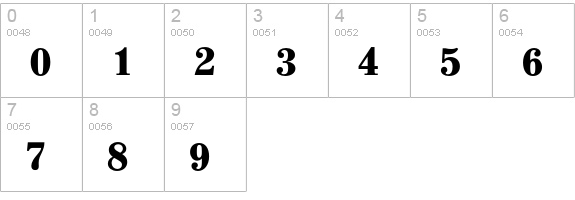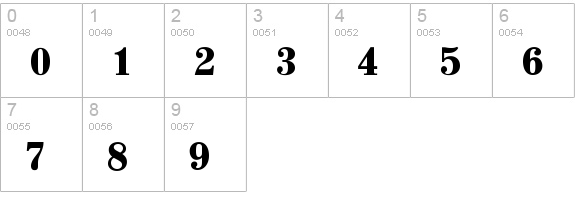
Valencia-ExtraBold is an extra-heavy, attention-grabbing variant in the Valencia typeface family \xE2\x80\x94 well suited to high-impact headlines, posters, and bold branding.
Valencia-ExtraBold font is a stunning typeface that exudes elegance and boldness. It is the perfect choice for those seeking to make a statement with their designs. With its strong and distinctive letterforms, this font commands attention and adds a touch of sophistication to any project. The Valencia-ExtraBold font is characterized by its thick strokes and sharp angles, giving it a powerful and impactful presence. Its bold and robust appearance makes it ideal for headlines, titles, and logos, as it effortlessly captures the viewer's attention. One of the best features of Valencia-ExtraBold font is that it is freely available to download at FontsMarket.com. This means that designers, creatives, and typographers can access this remarkable font without any cost, making it a valuable asset for both personal and commercial projects. Whether you are designing a magazine cover, creating a brand identity, or working on a promotional material, Valencia-ExtraBold font will bring your ideas to life with its strong and confident aesthetic. Its versatility allows it to be used in a variety of contexts, from print to digital, ensuring that your message will be communicated effectively. So, if you are looking for a bold and impactful font that is both visually striking and freely accessible, look no further than Valencia-ExtraBold font. Download it today from FontsMarket.com and elevate your designs to new heights of professionalism and creativity.